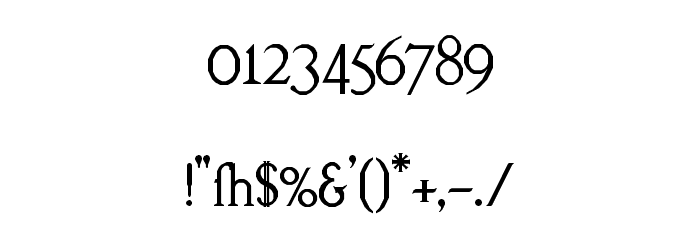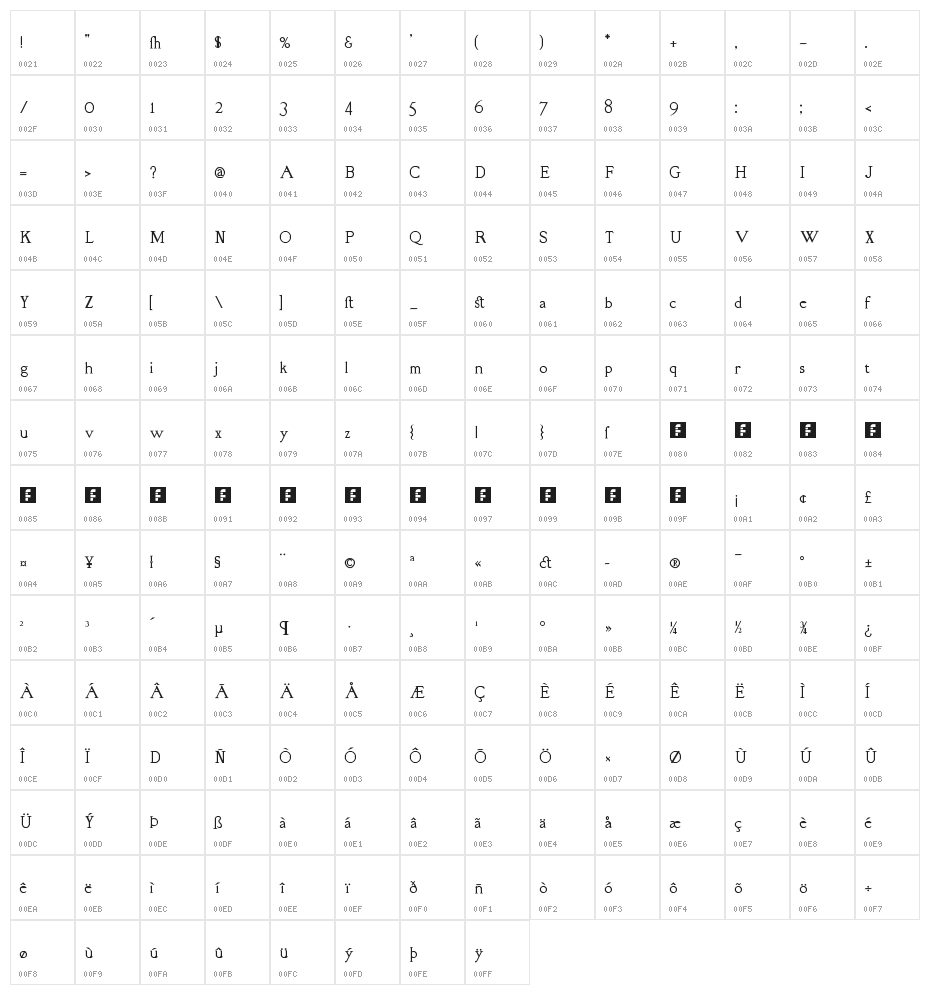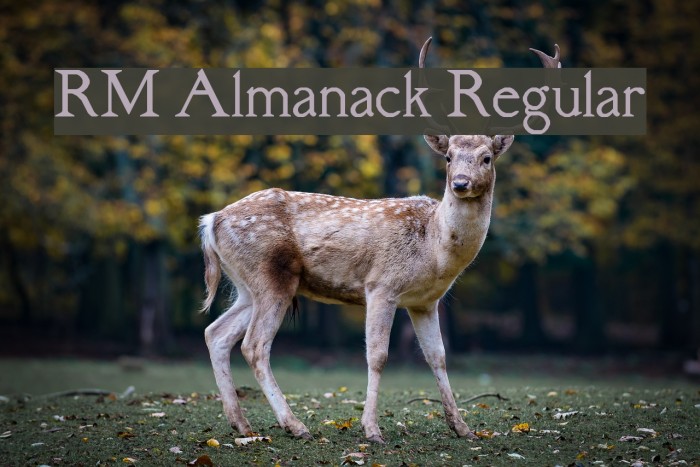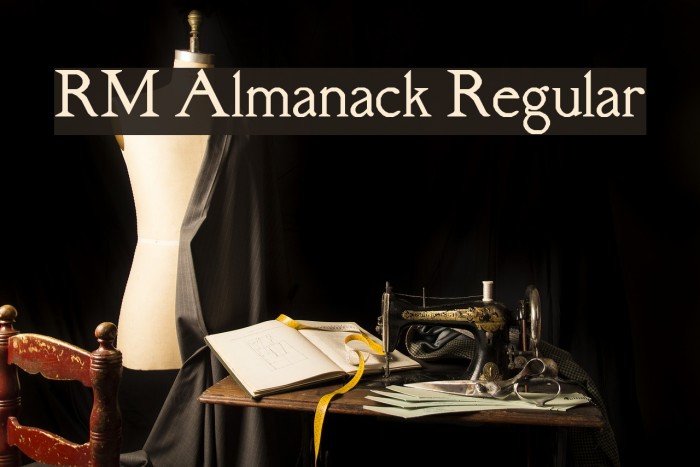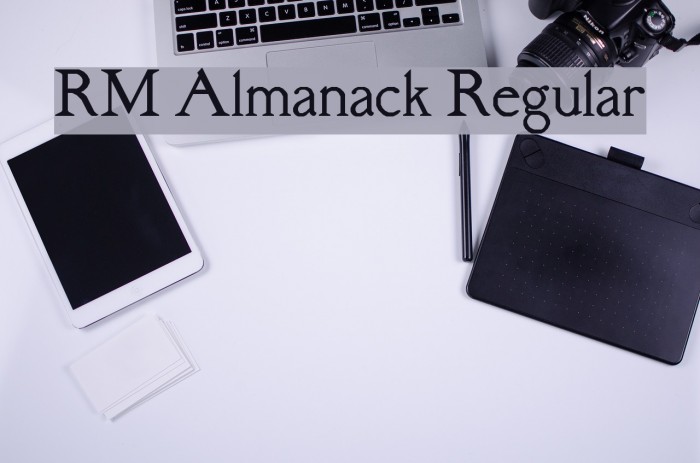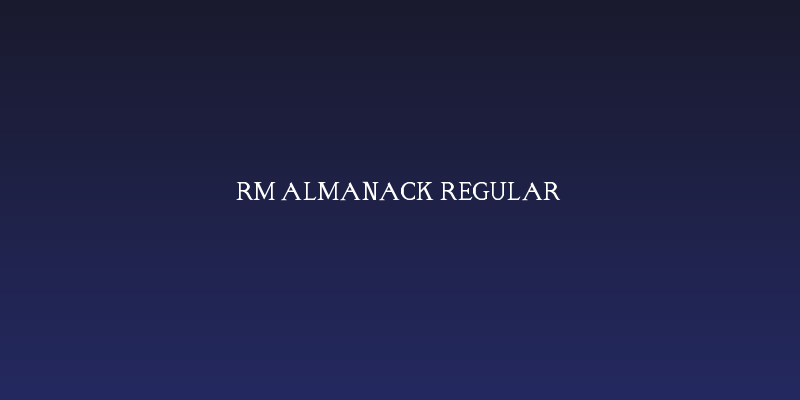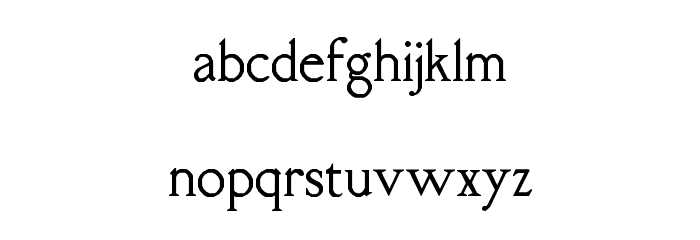
RM Almanack Regular Font
RM Almanack Regular Description
This typeface exudes a classic elegance with its serif design, characterized by sharp, pointed serifs and a moderate stroke contrast. The uppercase letters are stately and well-proportioned, while the lowercase letters maintain a traditional feel with a slight modern twist. The numerals are clear and distinct, ensuring readability. Special characters are crafted with attention to detail, complementing the overall aesthetic. The font's balanced proportions and refined style make it suitable for a variety of applications, from formal documents to sophisticated branding.
| Proposed Projects | Ideal for book covers, formal invitations, branding for luxury products, and editorial design. |